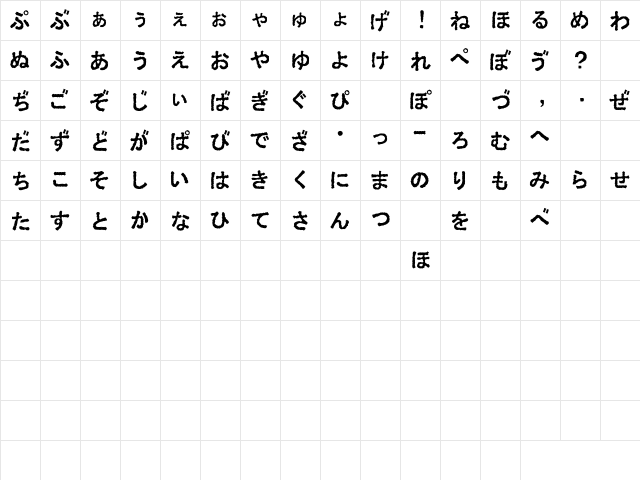
Ex Hira Opaque Regular
Design Context for Ex Hira Opaque Typeface
Ex Hira Opaque is a composed and adaptable typeface that performs quietly and consistently across a wide range of design contexts.